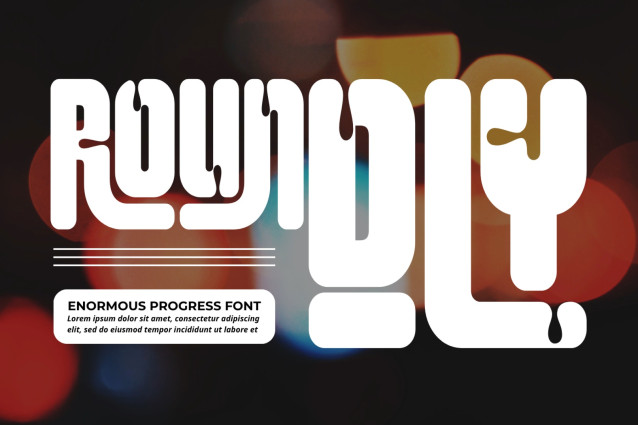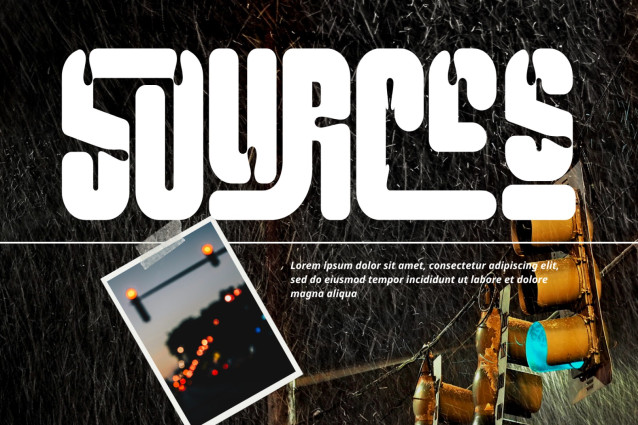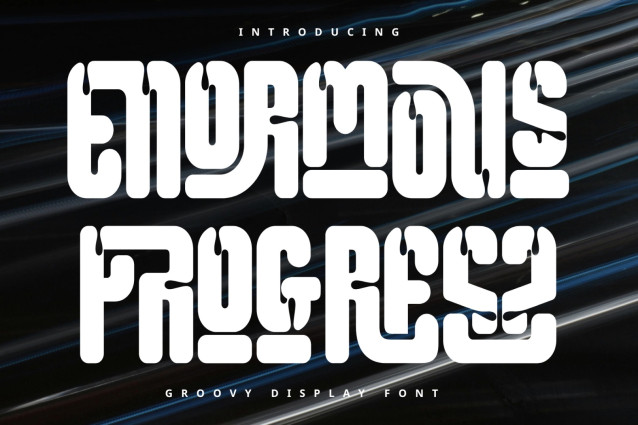
Enormous Progress – Bold Display Font
Enormous Progress – Bold Display Font is a bold experimental display typeface that blends heavy geometric construction with soft, organic curves and a distinctive retro-futuristic personality. Built with thick strokes, condensed proportions, rounded corners, and dramatic internal cuts, the typeface creates powerful letterforms that feel solid and graphic while remaining fluid and expressive. Deep notches and unusual transitions appear throughout the characters, producing an almost melted or sculpted quality that gives Enormous Progress its unmistakable visual identity.
Inspired by experimental display typography, retro graphics, psychedelic aesthetics, and contemporary editorial design, Enormous Progress balances geometric structure with playful distortion. Its oversized forms create strong rhythm and impressive visual impact, making even short words feel like custom lettering. The unconventional shapes are especially effective at large sizes, where every curve, cut, and negative space becomes part of the composition.